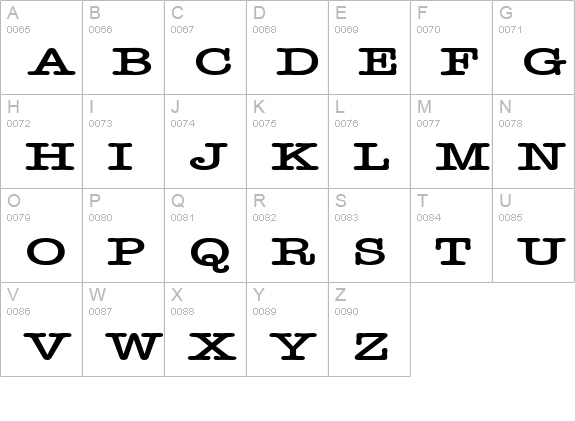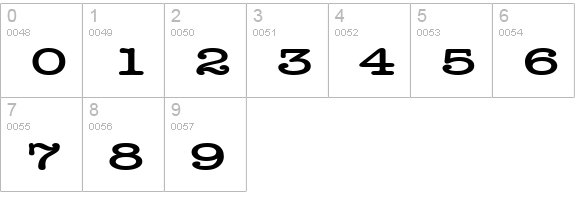
Headline Extended Bold Font Details
Headline Extended Bold is a strong, high-contrast, extended-width variant in the Headline typeface family \xE2\x80\x94 well suited to headlines, attention-grabbing titles, and strong calls-to-action.
Introducing Headline Extended Bold font - a captivating and dynamic typeface that exudes confidence and commands attention. With its bold and extended letterforms, this font makes a bold statement in any graphic design project or headline. Headline Extended Bold font is perfect for creating eye-catching headlines, magazine covers, posters, and advertisements that demand to be noticed. Its strong and distinct letterforms ensure legibility, even at smaller sizes, making it versatile for both print and digital designs. But what sets Headline Extended Bold font apart is its accessibility. We believe that great design should be available to everyone, which is why we are offering this remarkable font for free. That's right, you can freely download Headline Extended Bold font at FontsMarket.com, where you will find a vast collection of high-quality fonts to elevate your designs. Whether you're a professional designer or a creative enthusiast, Headline Extended Bold font empowers you to bring your ideas to life with style and impact. So why wait? Download Headline Extended Bold font today and take your designs to new heights.